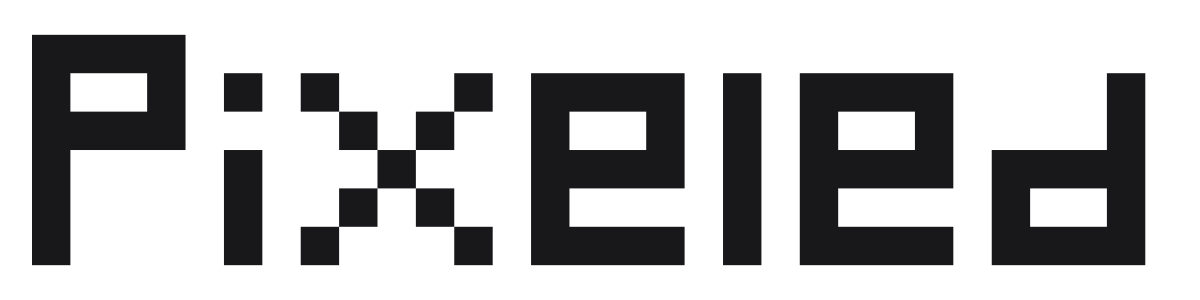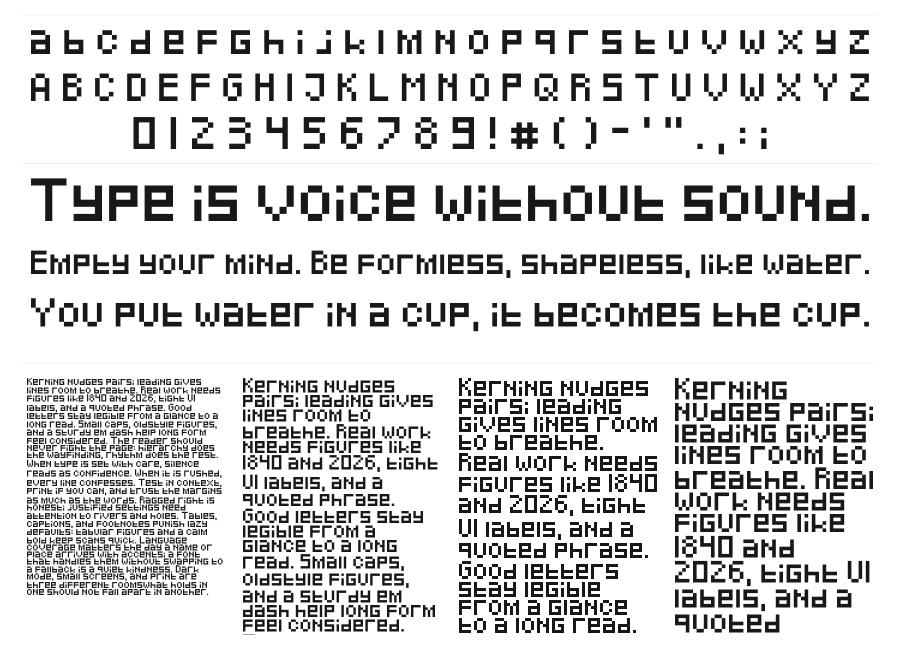
Pixeled
Pixeled is a bold 8-bit bitmap font built on a coarse pixel grid, channeling the chunky display text of classic arcade and console games. Every character is composed of thick rectangular blocks with no stroke contrast and squared terminals, giving the design its unmistakable retro-digital look. Great for gaming interfaces, retro-themed branding, and any context that needs a hit of nostalgia.